A dear friend of mine gifted me a zinc service of service type (Haas type or zinc-aluminum type for folks familar with Schmedt) over Christmas. His estimated guess is that this font is from an American company called Enest Schaefer Inc. (1922).
I looked through their catalogue* and it matches a font called 'Narrow #57', however I assume that is not the real name? This part of the catalogue mentions this font was used by 'old watch craftsmen'. I have e-mailed the company but haven't heard back (yet).
I have run the font through the Identifont 'quiz' and GT America Compressed (http://www.identifont.com/show?4E14) rolled out as an possible result. However, I am not convinced the Q's are the same (if you look at the tail) and I also think it is older than 2016.
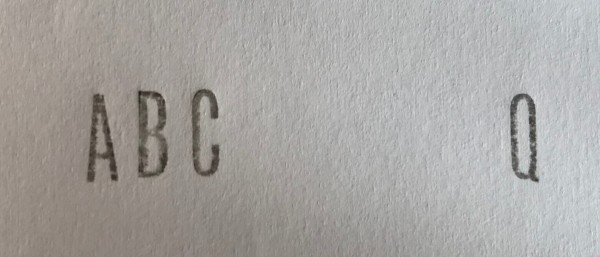
I would be very grateful if anyone has a clue of what this compressed san serif font is called? Thank you!
*I know the catalogue says brass type but my guess is that at one point in time they always produced it as an service type.
Your type doesn't match the Narrow #57 sample, which is much more square and the ‘G’ has no beard. GT America is a fairly new typeface, so that wouldn’t make sense. What makes more sense is an older metal face, like News Gothic Extra Condensed. It would be nice to see some lowercase to be sure. Do you have any?
Thank you for helping me out with that very sharp eye of yours. Sadly, I have no lowercase. However, I think you are right on the mark with 'news gothic extra condensed'. I spoke to my friend again and he got this type from a cabinet he bought secondhand. After looking for some other US companies who make service type I came across Durable Technologies, who have in their catalogue David (or News Gothic Condensed).